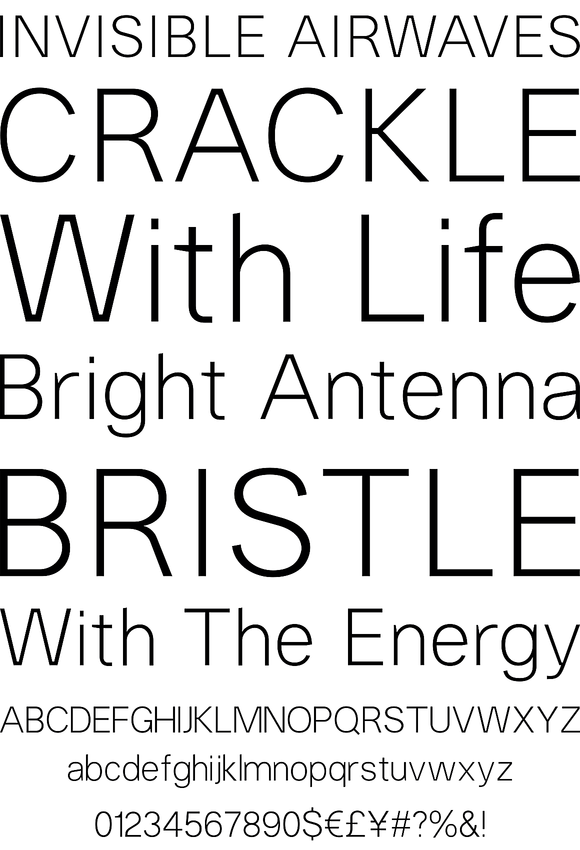
Foundry: The Northern Block
A modern neo-grotesque typeface. Having grown up in Sheffield and been completely immersed in the work of The Designers Republic I became very drawn to their treatment of Helvetica, especially the close tracking of the letter space. This visual investigation led me to the study of the font Hass Unica, a so called improvement to Helvetica. In-order not to replicate and become a clone of Unica I redrew all the characters from scratch improving optical appearance, developing subtle corrections and reshaping individual letterforms. The result is a remixed neo-grotesque font that has strong general optical balance with great rhythm under close tracking. Details include 10 weights, an extended European character set, true italic, manually edited kerning and Euro symbol.